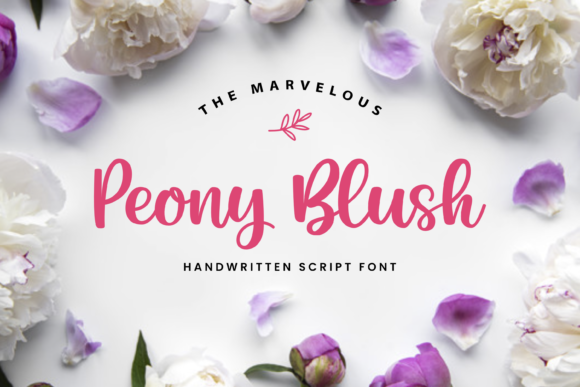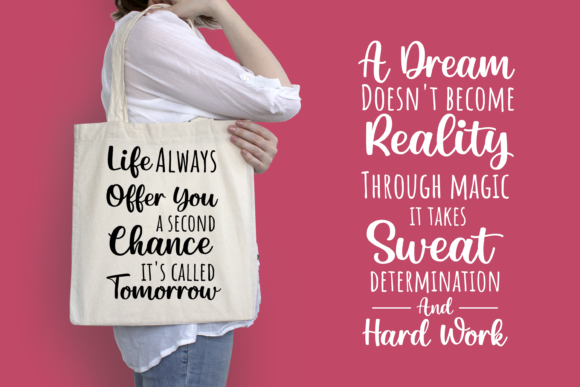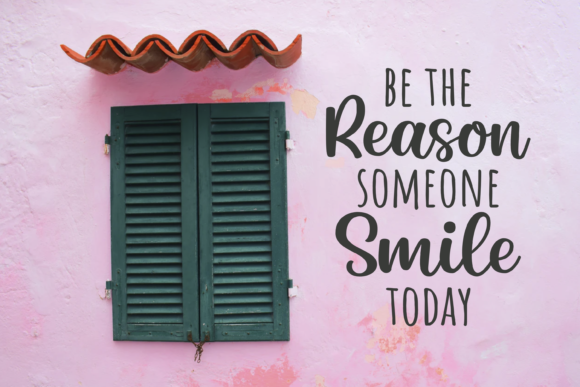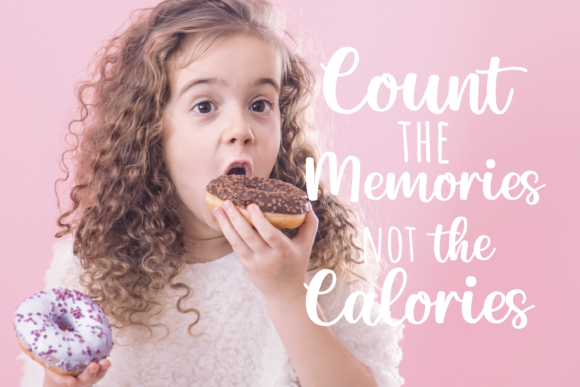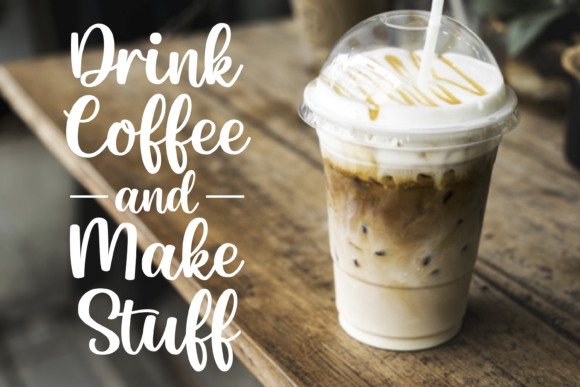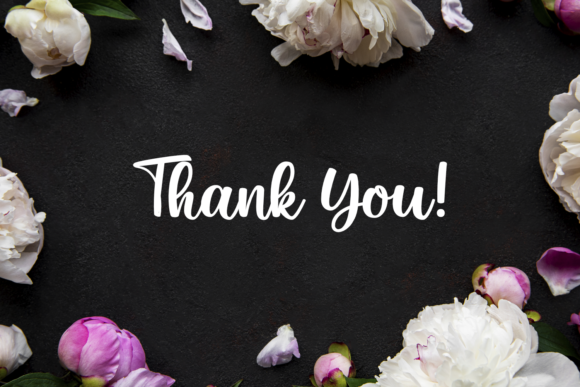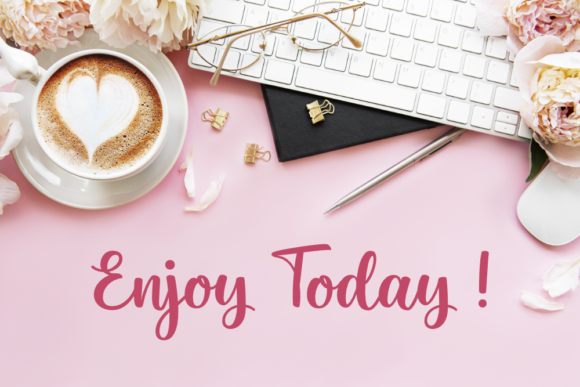
Peony Blush Font
About Peony Blush Font
Peony Blush is a sweet and cursive handwritten font. This gentle font will look gorgeous on a variety of design ideas. It will add a joyful and romantic touch to each of your projects!